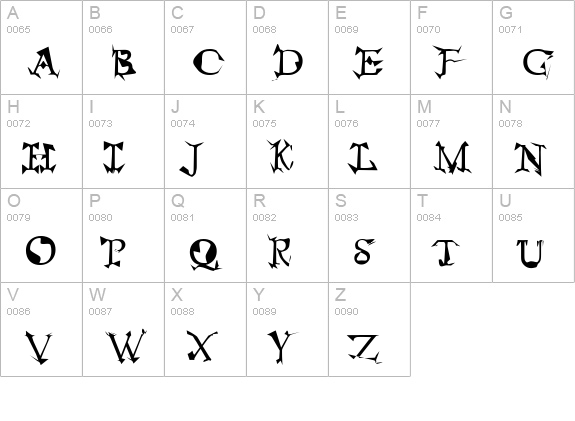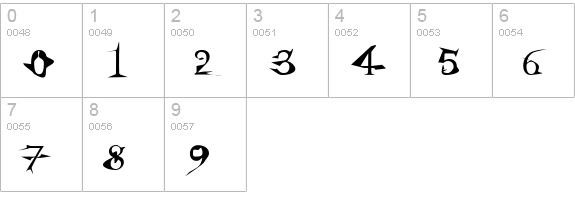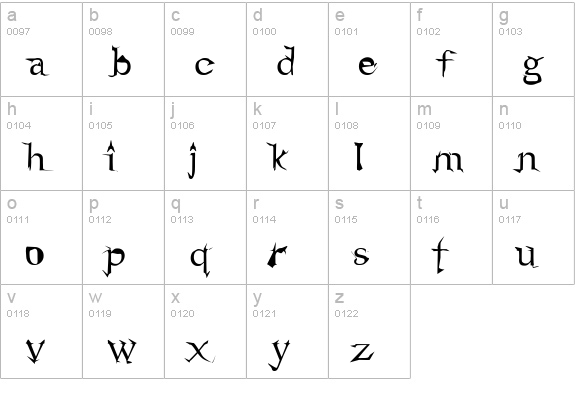
Alien Font Details
The Alien font is a futuristic and otherworldly typeface that is perfect for adding a touch of extraterrestrial flair to your designs. Created with sleek lines and unique shapes, this font is sure to captivate the imagination of anyone who sees it. Whether you're working on a science fiction project or just want to stand out from the crowd, the Alien font is the perfect choice. Best of all, this font is completely free to download at FontsMarket.com. Don't miss out on the opportunity to add this one-of-a-kind typeface to your collection and unleash your creativity like never before. Download the Alien font today and let your designs boldly go where no design has gone before!